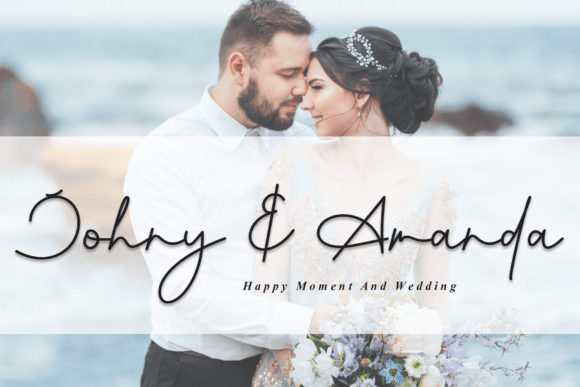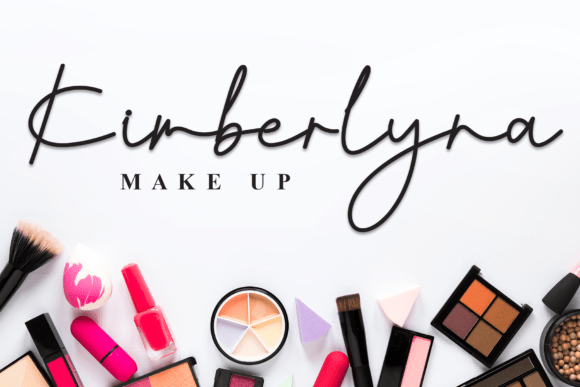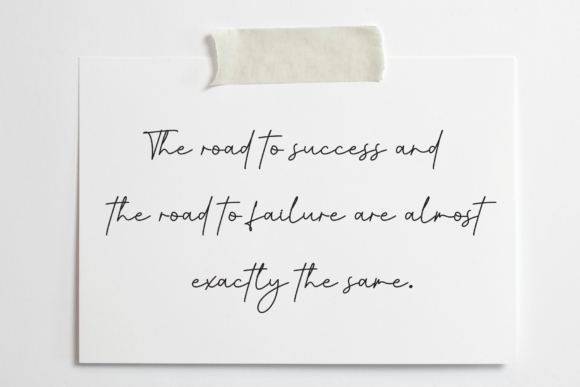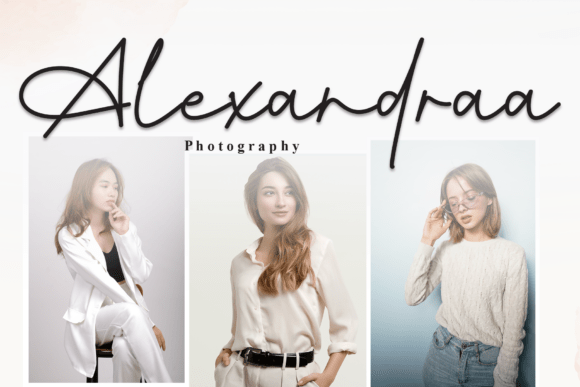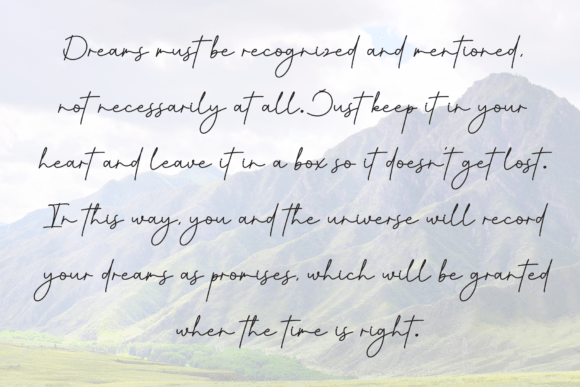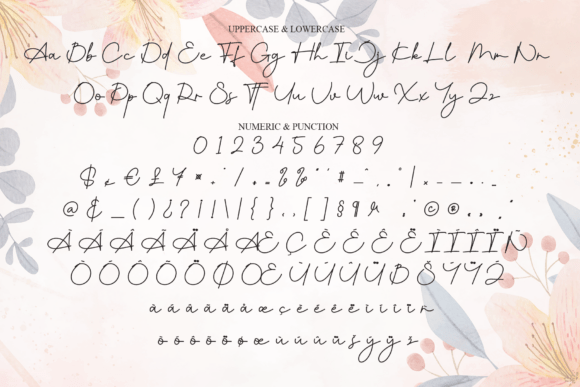
Introducing Belinda Font: Elevate Your Designs with Elegance and Charm
In the world of typography, few fonts capture the essence of sophistication and romance as effortlessly as the Belinda Font. This exquisite script font is designed to bring a touch of elegance to any design, making it perfect for a variety of creative projects, from weddings and branding to social media and invitations. With its smooth curves and graceful swashes, Belinda Font infuses your text with a handwritten, romantic feel that is sure to captivate your audience.
The Characteristics of Belinda Font
Belinda Font is characterized by its elegant, flowing lines that dance across the page with a sense of fluidity and movement. Each letter is crafted with meticulous attention to detail, featuring intricate swashes and flourishes that add a touch of luxury to your designs. The font’s smooth curves and rounded edges create a soft, inviting aesthetic that is both visually appealing and highly readable.
Whether you’re a designer, crafty DIY enthusiast, or social media influencer, Belinda Font offers a versatile solution for elevating your text and adding a personal touch to your creations. Here are just a few ways you can use this beautiful font:
- Weddings:** Use Belinda Font to create stunning wedding invitations, save-the-date cards, and ceremony programs that set the tone for a romantic and unforgettable celebration.
- Branding:** Add a touch of sophistication to your brand’s identity with Belinda Font, perfect for logos, business cards, and packaging that require a elegant and refined aesthetic.
- Social Media:** Elevate your social media presence with eye-catching graphics and quotes that showcase your personality and style, all while maintaining a consistent and professional look.
- Invitations:** Create beautiful and unique invitations for parties, baby showers, and other special occasions that will leave a lasting impression on your guests.
Adding a Personal Touch to Your Designs
One of the standout features of Belinda Font is its ability to add a personal and stylish flair to your designs. Whether you’re crafting a signature logo, heartfelt quote, or simple message, this font brings a level of warmth and humanity that is hard to replicate with other typography options. By incorporating Belinda Font into your creative projects, you can:
- Create a lasting impression:** With its elegant and refined aesthetic, Belinda Font helps you make a lasting impression on your audience, whether you’re trying to build a brand, promote a product, or simply share your message.
- Stand out from the crowd:** In a world of generic fonts and cookie-cutter designs, Belinda Font offers a unique and distinctive voice that sets you apart from the competition.
- Evoke emotions:** By tapping into the romantic and sophisticated feel of Belinda Font, you can evoke emotions and create a deeper connection with your audience, making your designs more impactful and memorable.
Tips for Using Belinda Font Effectively
To get the most out of Belinda Font, here are a few tips to keep in mind:
- Use it sparingly:** While Belinda Font is undoubtedly beautiful, it’s best used in moderation. Try pairing it with a simpler font for body text to create visual interest and hierarchy.
- Experiment with colors:** Belinda Font looks stunning in a variety of colors, from rich jewel tones to soft pastels. Don’t be afraid to experiment and find the perfect hue to match your brand or design aesthetic.
- Play with swashes:** One of the unique features of Belinda Font is its swashes and flourishes. Experiment with different swash combinations to add a touch of personality to your designs.
In conclusion, Belinda Font is a versatile and elegant script font that brings a touch of sophistication and romance to any design. With its smooth curves, flowing lines, and intricate swashes, this font is perfect for a variety of creative projects, from weddings and branding to social media and invitations. By incorporating Belinda Font into your designs, you can add a personal and stylish flair that sets you apart from the competition and leaves a lasting impression on your audience.